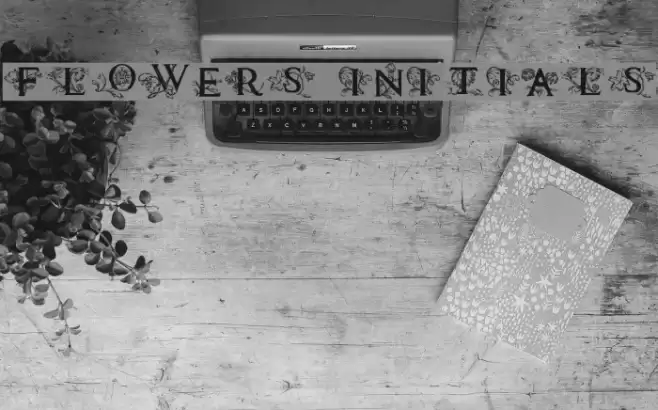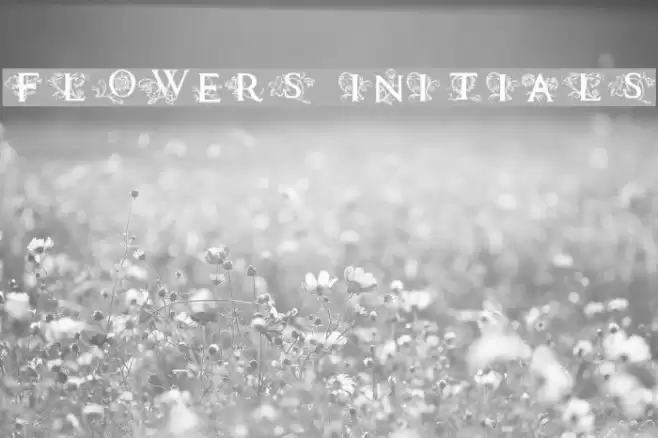
Flowers Initials Font
Flowers Initials Description
This font features an intricate and decorative style, combining classic serif letterforms with ornate floral embellishments. Each character is adorned with detailed floral motifs, giving it an elegant and artistic appearance. The letters maintain a traditional serif structure, providing a sense of formality and sophistication, while the floral elements add a whimsical and decorative touch. This unique combination makes the font suitable for projects that require a blend of classic elegance and artistic flair. The overall design is visually striking, making it ideal for use in decorative applications where the text needs to stand out.
A decorative serif font with intricate floral embellishments from Uncategorized fonts.
- Proposed Projects: Ideal for wedding invitations, greeting cards, branding for luxury products, and decorative headings.
- Use Case: Headlines, Decorative text